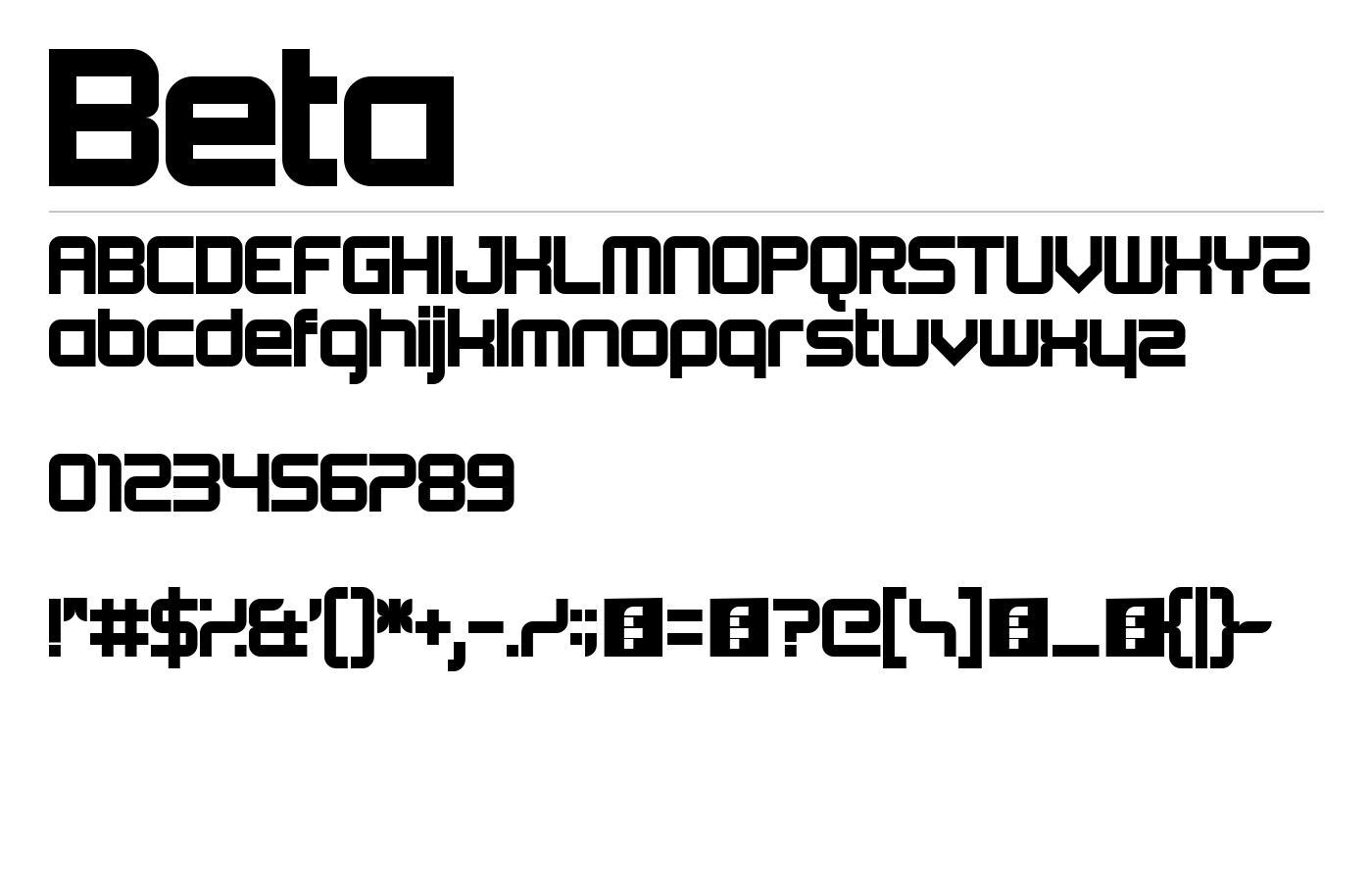
Beta Font is a bold, geometric sans serif with a futuristic, techno vibe. Its squared shapes and clean, uniform strokes give it a modern and industrial feel, making it ideal for branding, headlines, and projects that want to convey innovation and strength. This font works well in digital media, posters, and tech-oriented designs where a strong, confident presence is needed.
Beta Font
About Beta Font
| Font family | Beta Font |
| Designer | Andrew McCluskey |